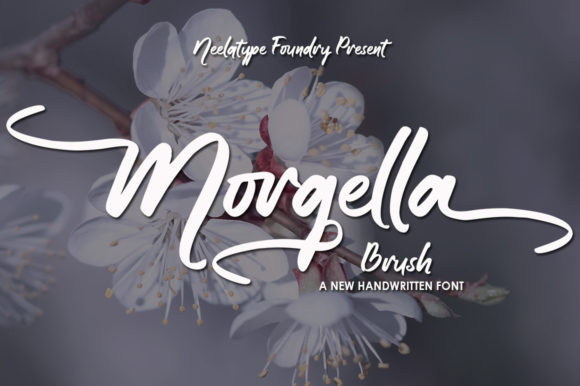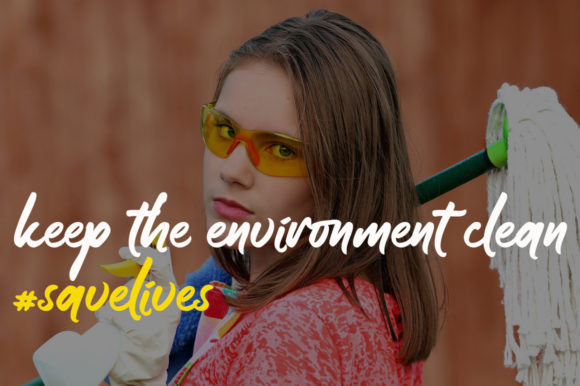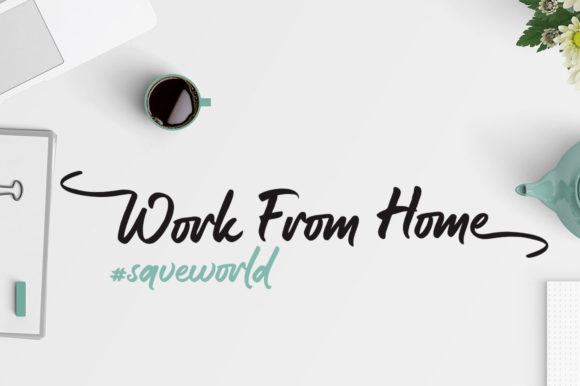
Morgella Font
Morgella is inspired by classic typography and brings its own unique style to any design project. This handwritten font will appeal to a wide range of crafty ideas, from letterheads and titles, to stationery.